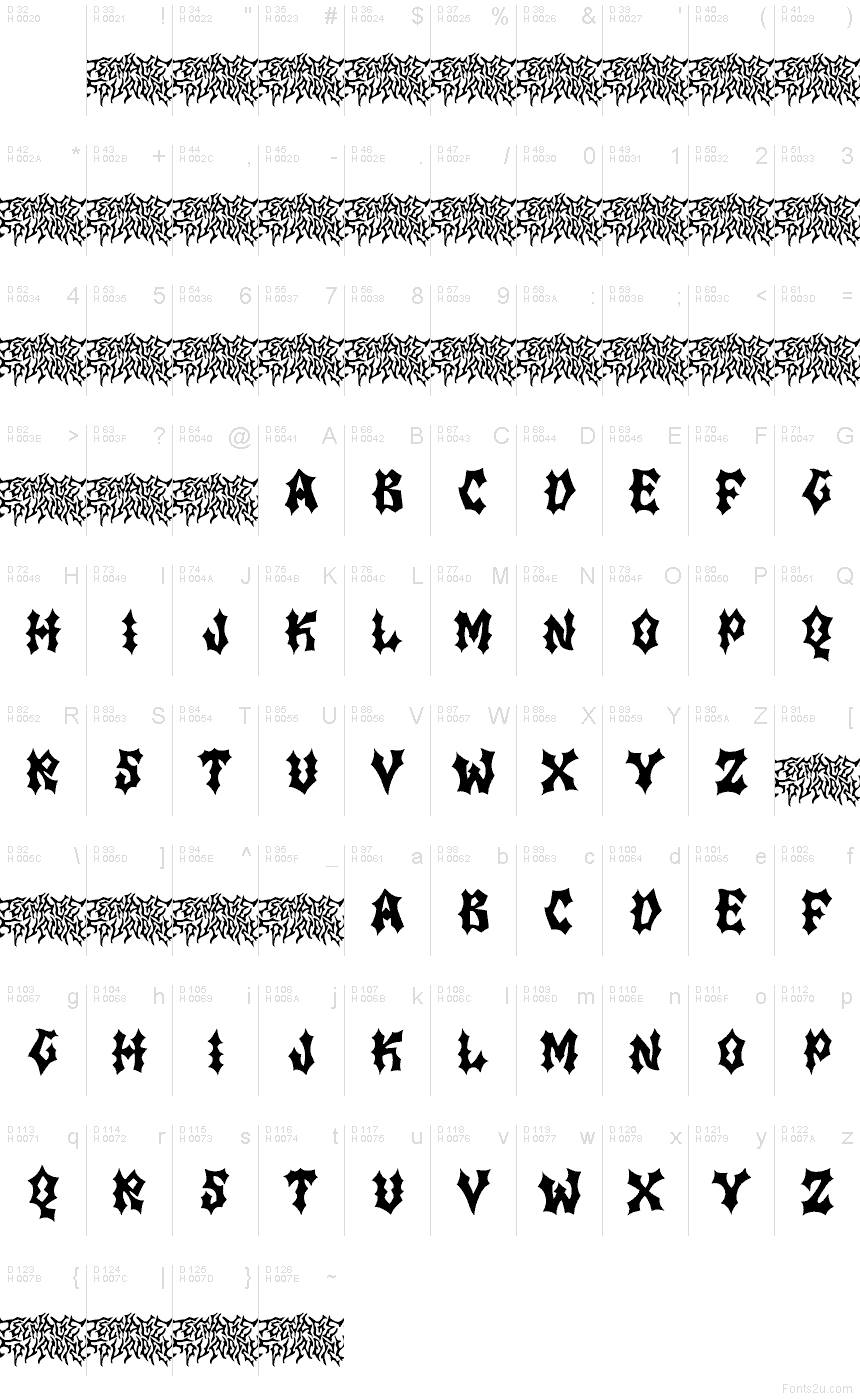
TeenageRockShow
Teenage Rock Show font by Teenage Foundry is a modern gothic font with a bold style. This chaotic, edgy, and jagged typeface captures a rebellious and high-energy vibe, perfect for making an impactful statement. Its dramatic and aggressive design makes it stand out in any composition.
Great uses include fashion magazines, music posters, band merchandise designs, advertisements for concerts or festivals, eye-catching product packaging projects, exciting book covers or titles work with similar themes like horror stories/comics adaptations; innovative branding businesses within the entertainment industry; playful T-shirt printing campaigns even social media graphics that require unique elements to boost engagements instantly!